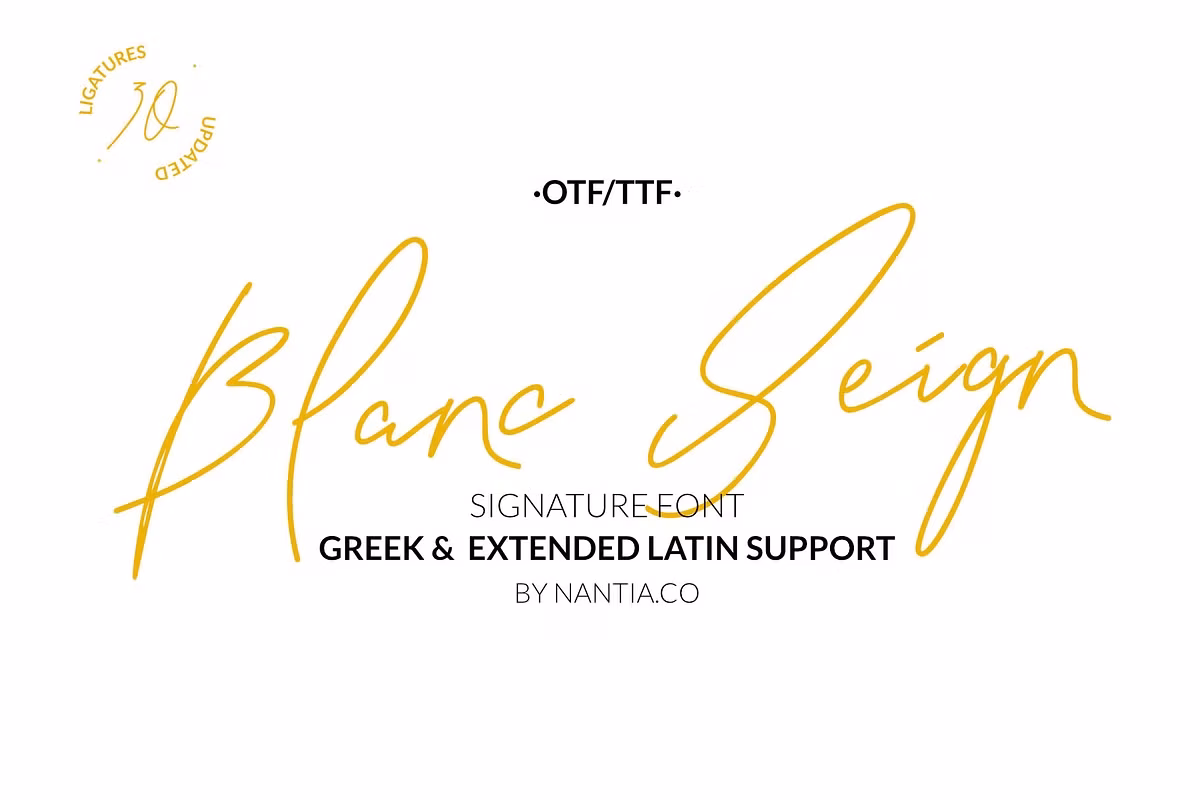
Greek Font Signature Free Download
Greek Font Signature Free Download is an elegant and refined handwritten script typeface with a unique signature style. Featuring smooth, flowing strokes and a sophisticated, personalized feel, this font is perfect for creating luxurious branding, wedding invitations, logos, greeting cards, and other high-end design projects. Its graceful curves and signature-inspired design make it ideal for projects that require a sense of class and individuality.
Using the Greek Font Signature Free Download adds a personal, professional touch to your typography. Whether you're designing a custom logo, crafting wedding invitations, or creating premium marketing materials, this font helps convey a sense of elegance, exclusivity, and refinement.